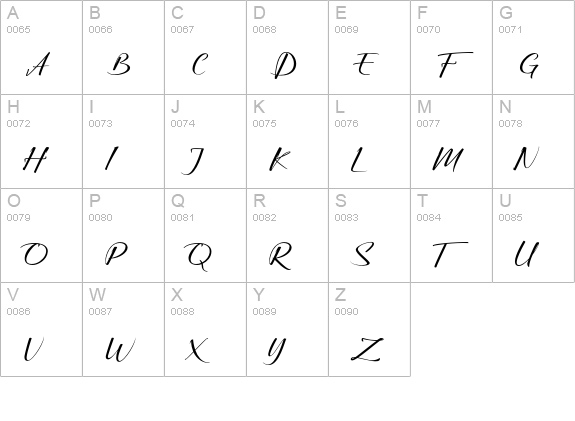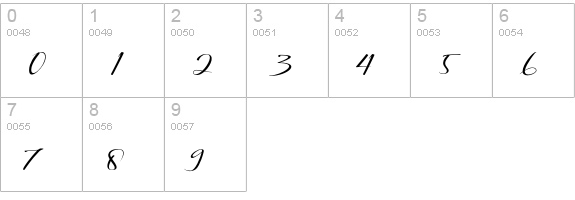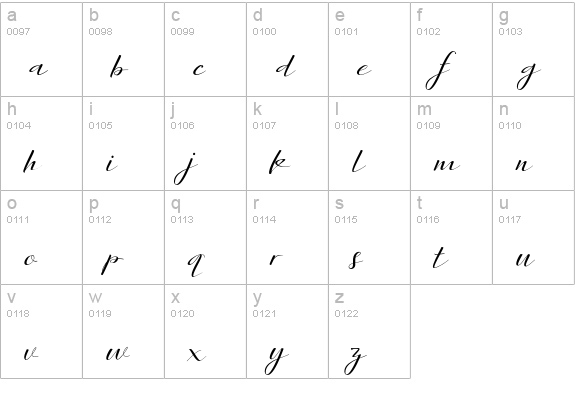
Rambies Font Details
Rambies font exudes a unique blend of elegance and playfulness, making it a perfect choice for various design projects. With its stylish curves and modern appeal, this font adds a touch of sophistication to any creative endeavor. Whether you are designing a logo, website, or poster, Rambies font will make your text stand out and leave a lasting impression. And the best part? Rambies font is completely free to download at FontsMarket.com. That's right, you can enhance your designs with this stunning font without breaking the bank. Don't miss out on the opportunity to elevate your projects with the charm and versatility of Rambies font. Download it today and let your creativity shine!